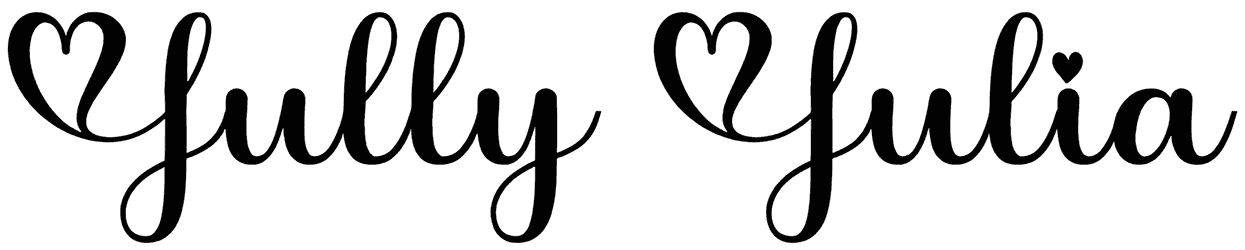
Jully Julia Font
If you want to enter your lover’s heart by writing a few simple, delightful sentences, Jully Julia can depict everything you have in mind on paper.
The edges of the capital letters in this script font have a heart-shaped decoration that can be a superior representative of your feelings. The organic and delicate design of this Valentine’s font can record memorable logos for companies active in the field of fashion, clothing, and stationery.